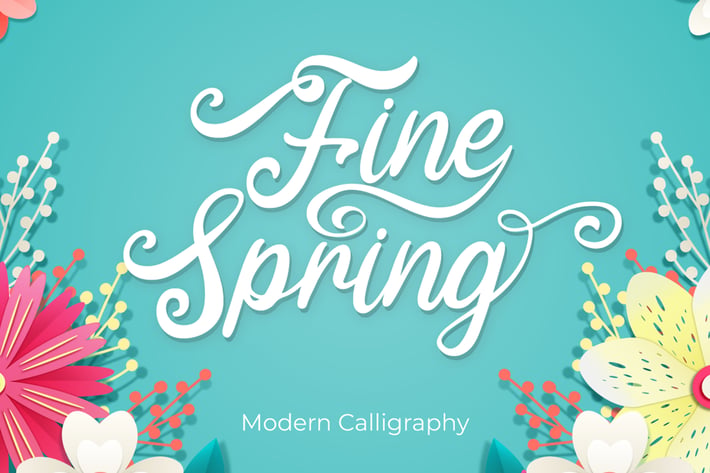
Fine Spring - Script Font
Attype-Studio
Fine Spring is lovely display font inspired by spring season, including 4 stylistic set that perfect for any combination for your design.
More than 400 glyph